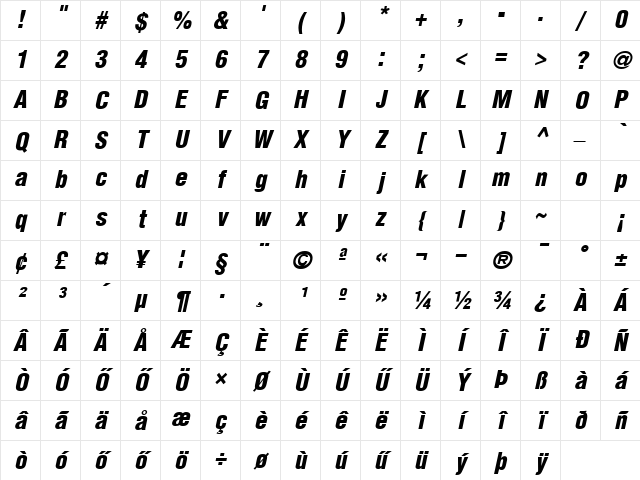
HHelvetica Condensed Black Italic
HHelvetica Condensed Black Family
Complete HHelvetica Condensed Black Italic glyph index. Displaying only characters natively supported by HHelvetica Condensed Black Italic font.
Design Context for HHelvetica Condensed Black
HHelvetica Condensed Black is a composed and adaptable typeface that performs quietly and consistently across a wide range of design contexts. The slanted form adds forward momentum and visual energy. Its narrow stance lets it pack a punch even in space-constrained designs.
Pro Tip: Use HHelvetica Condensed Black for emphasis, pull quotes, and subheadings where its slanted energy can add rhythm to the layout.